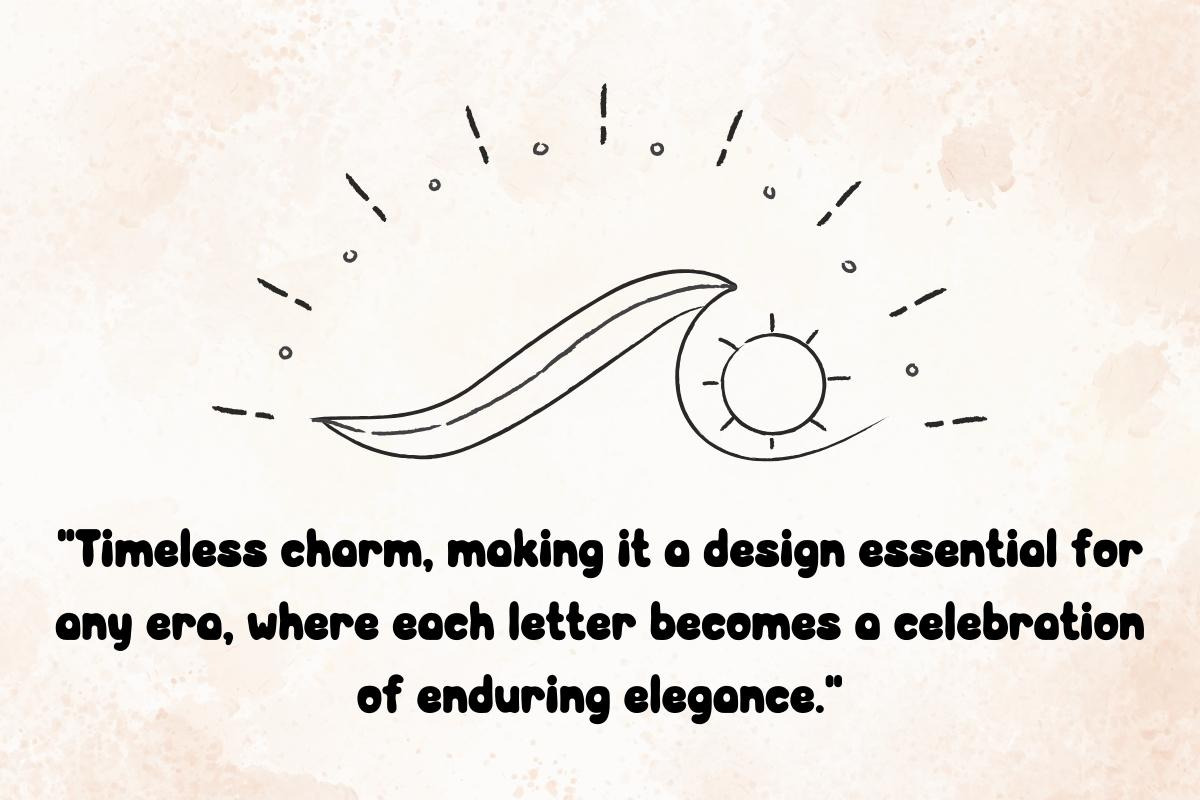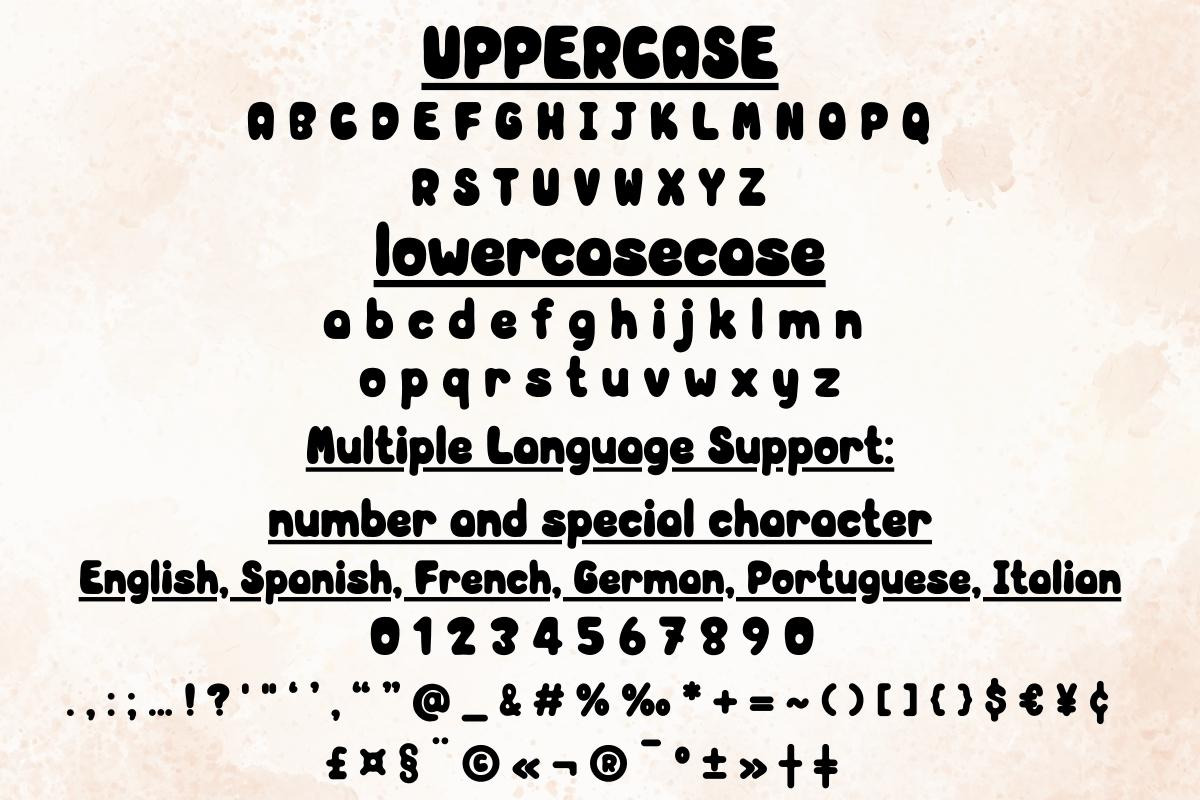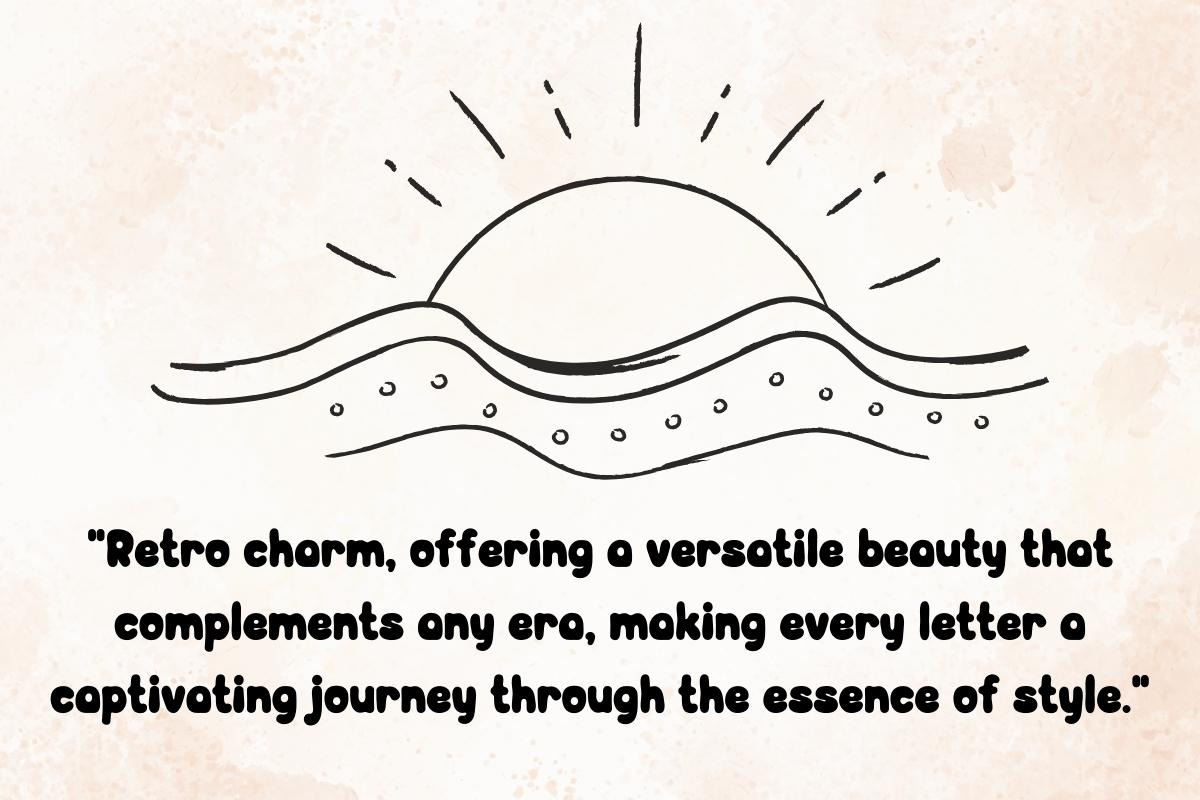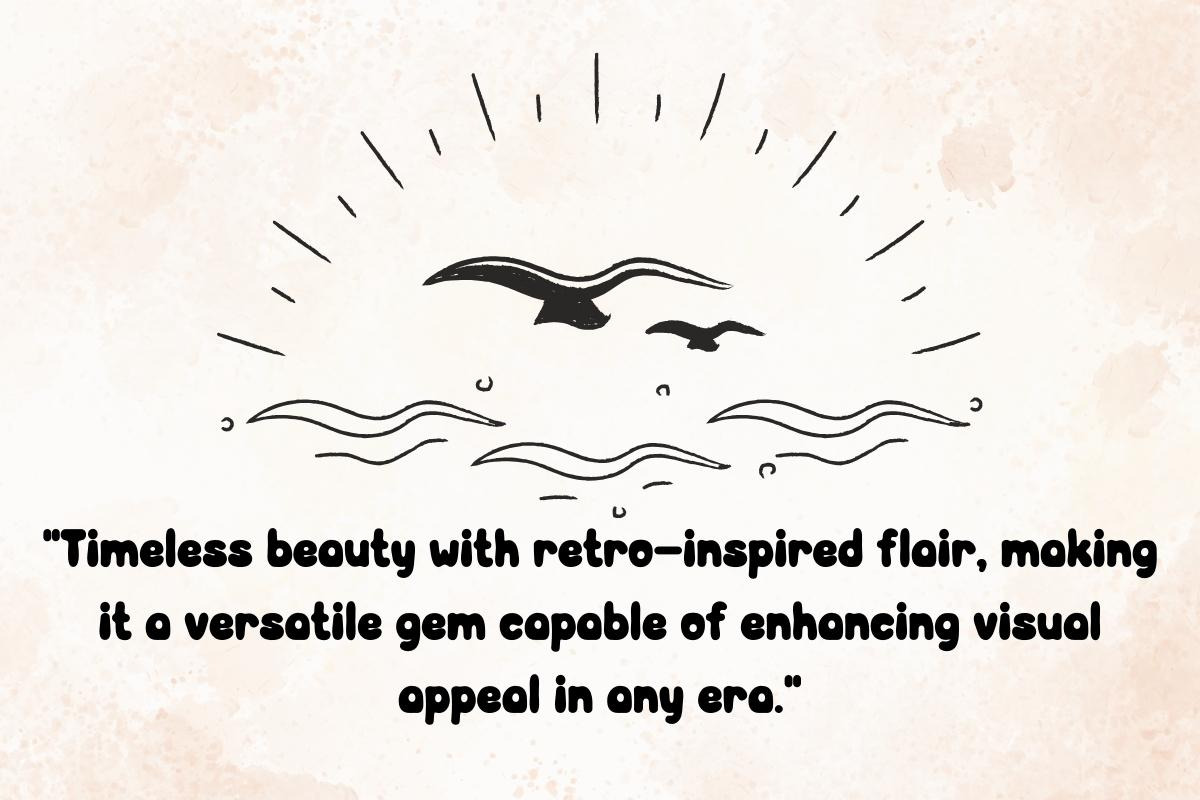
Groovy Wave - Handwritting
"Groovy Wave, with its harmonious blend of flowing contours and retro charm, emanates a captivating beauty, turning each letter into a visual dance that adds a touch of stylish nostalgia to any design."